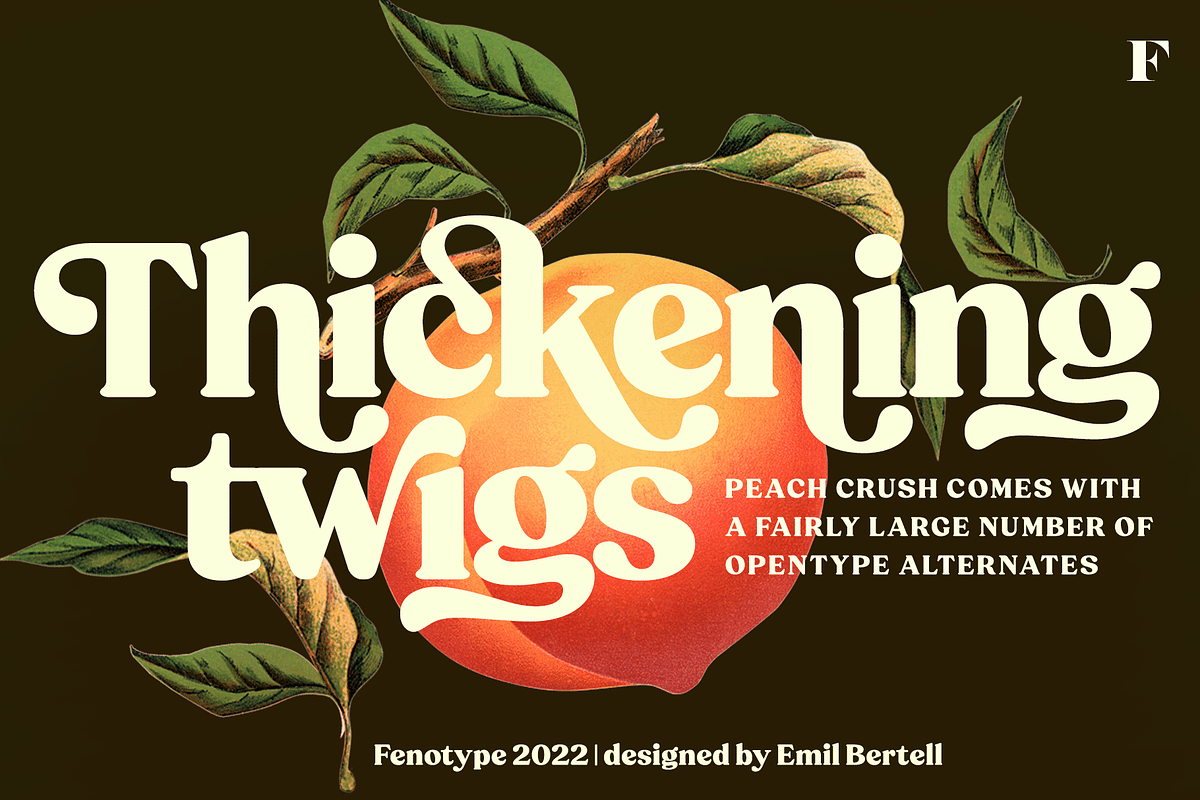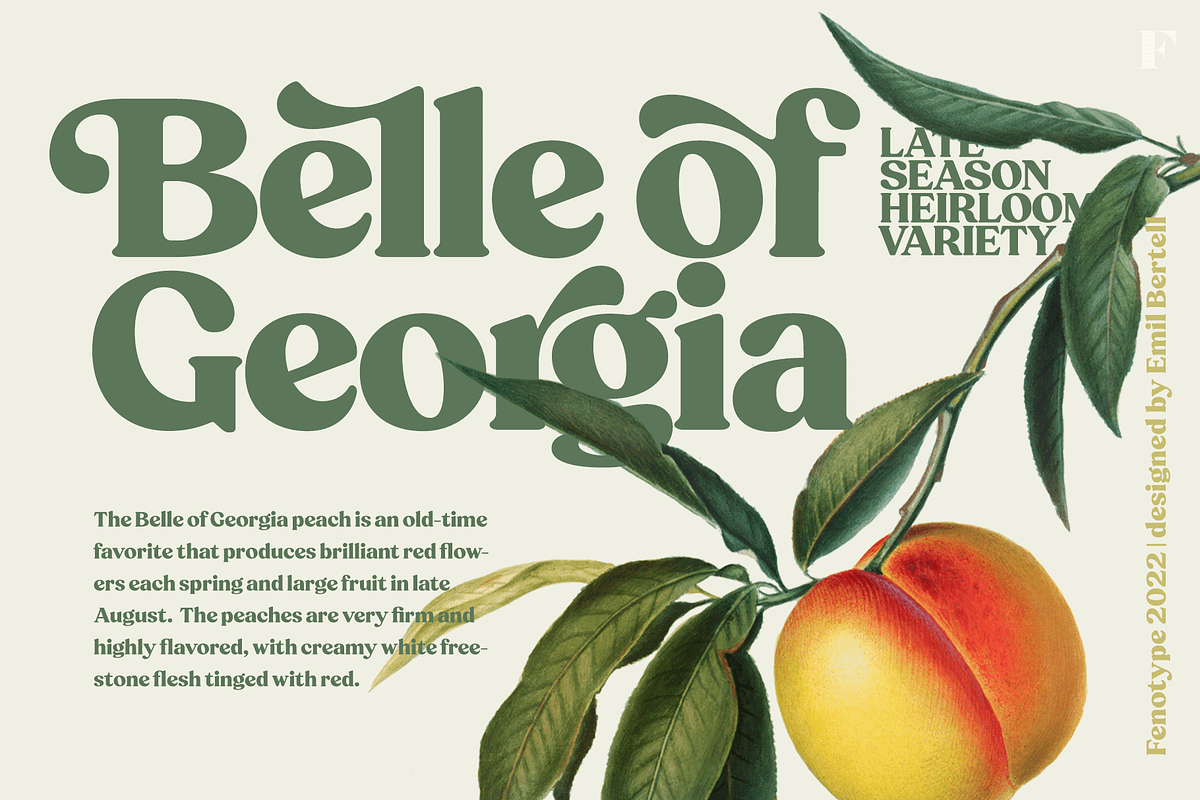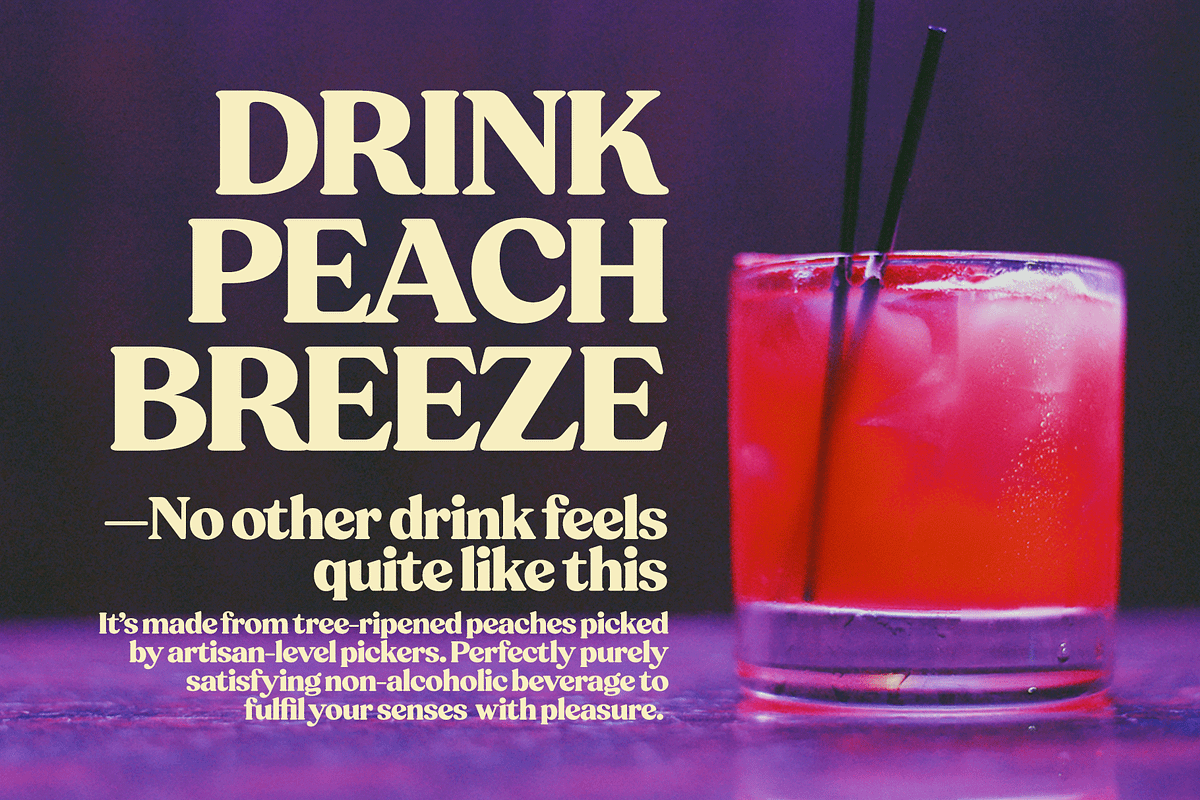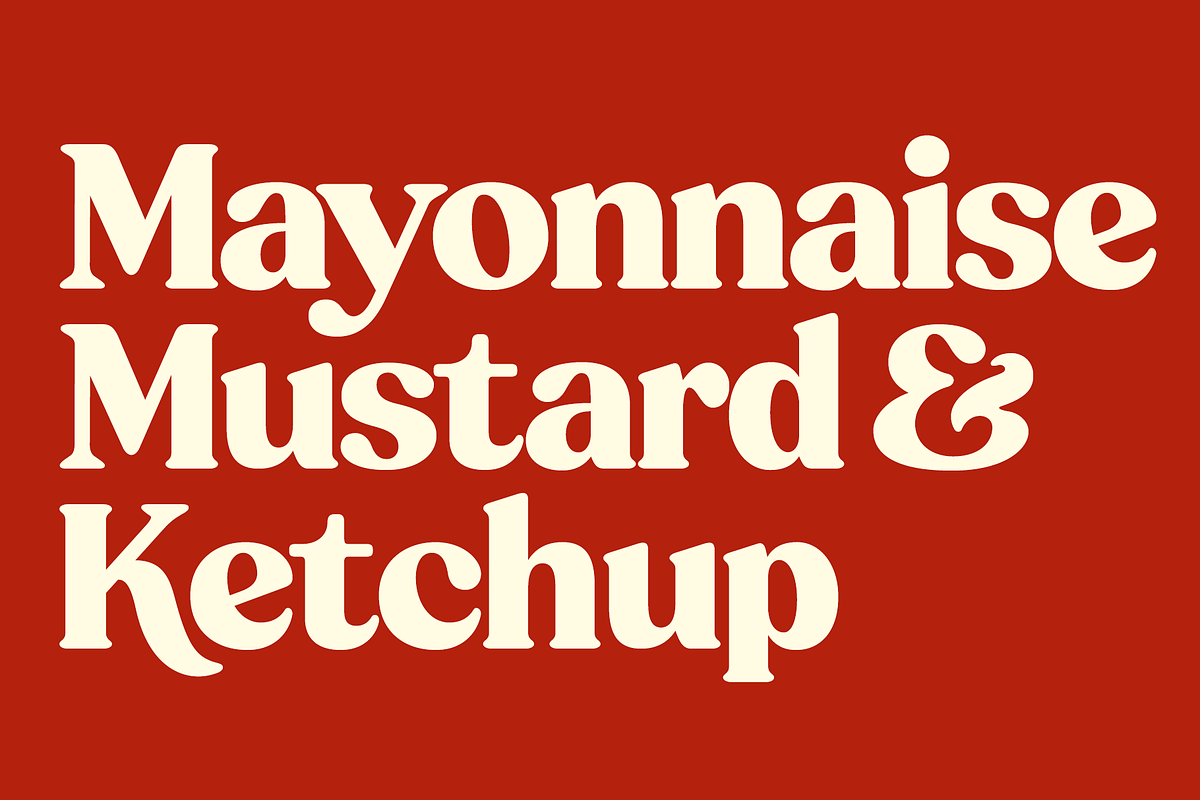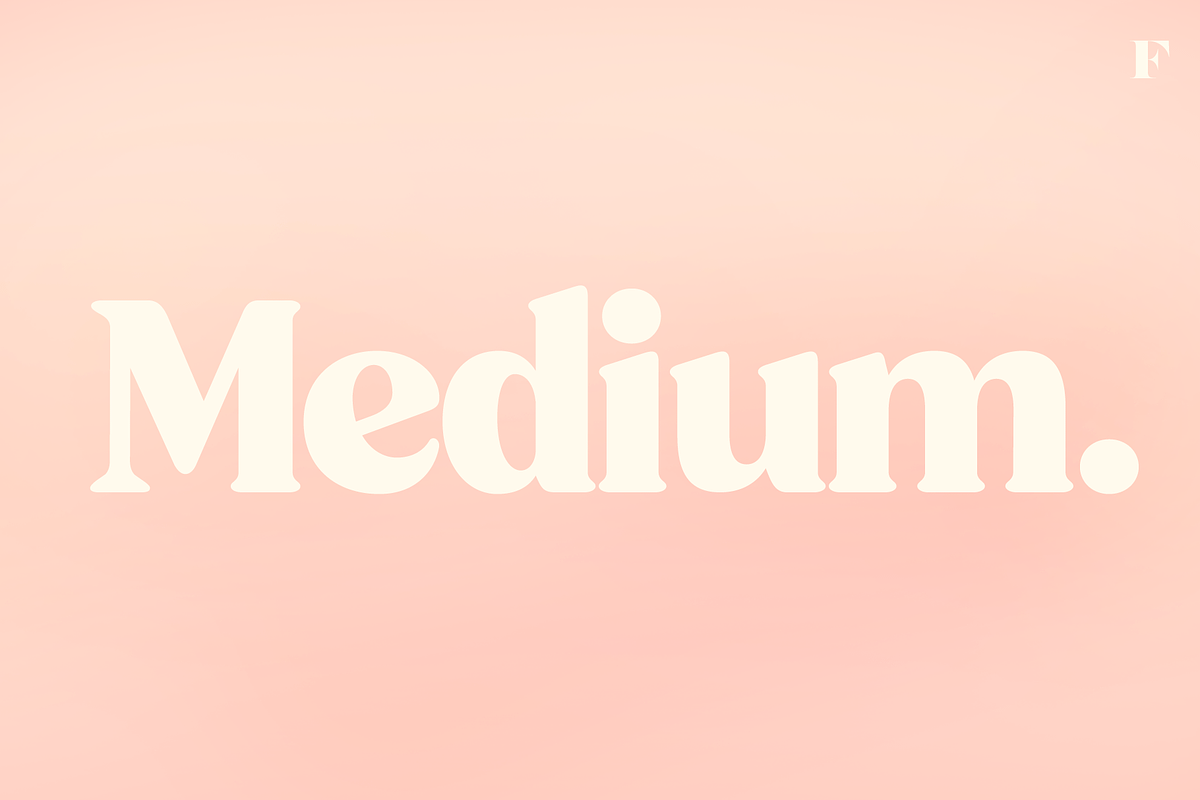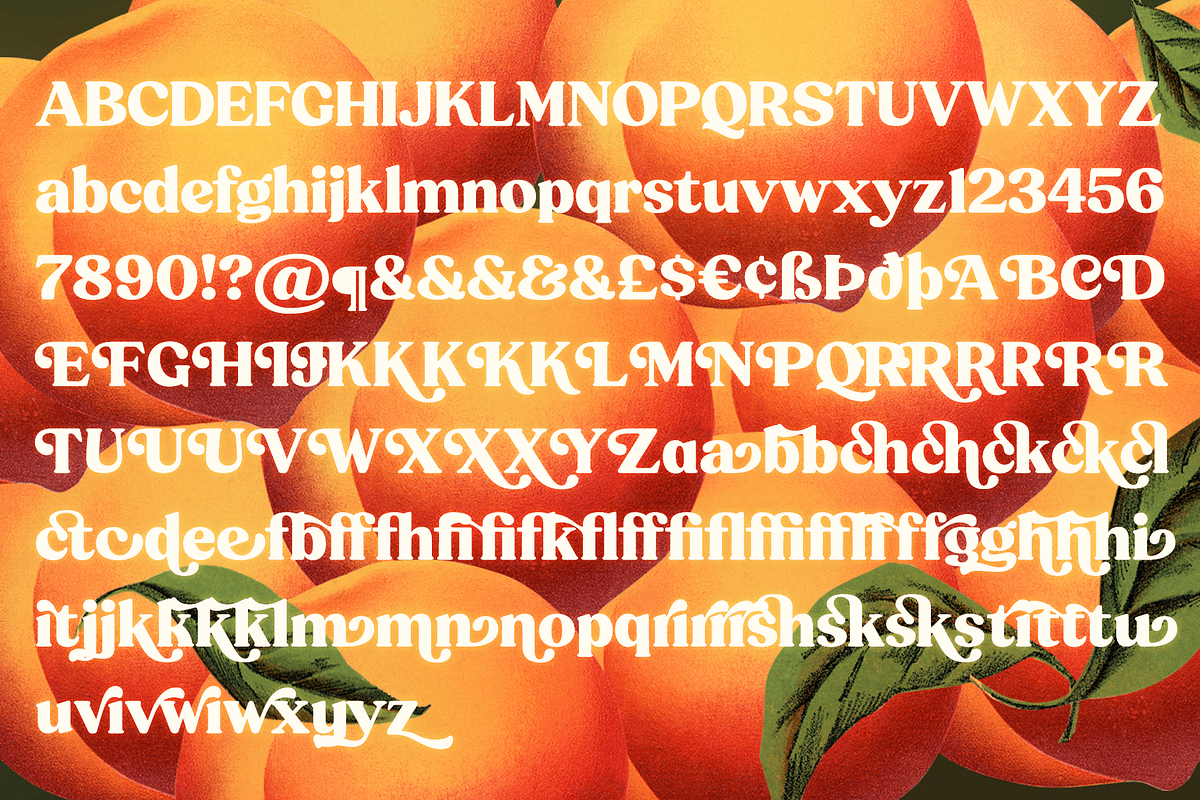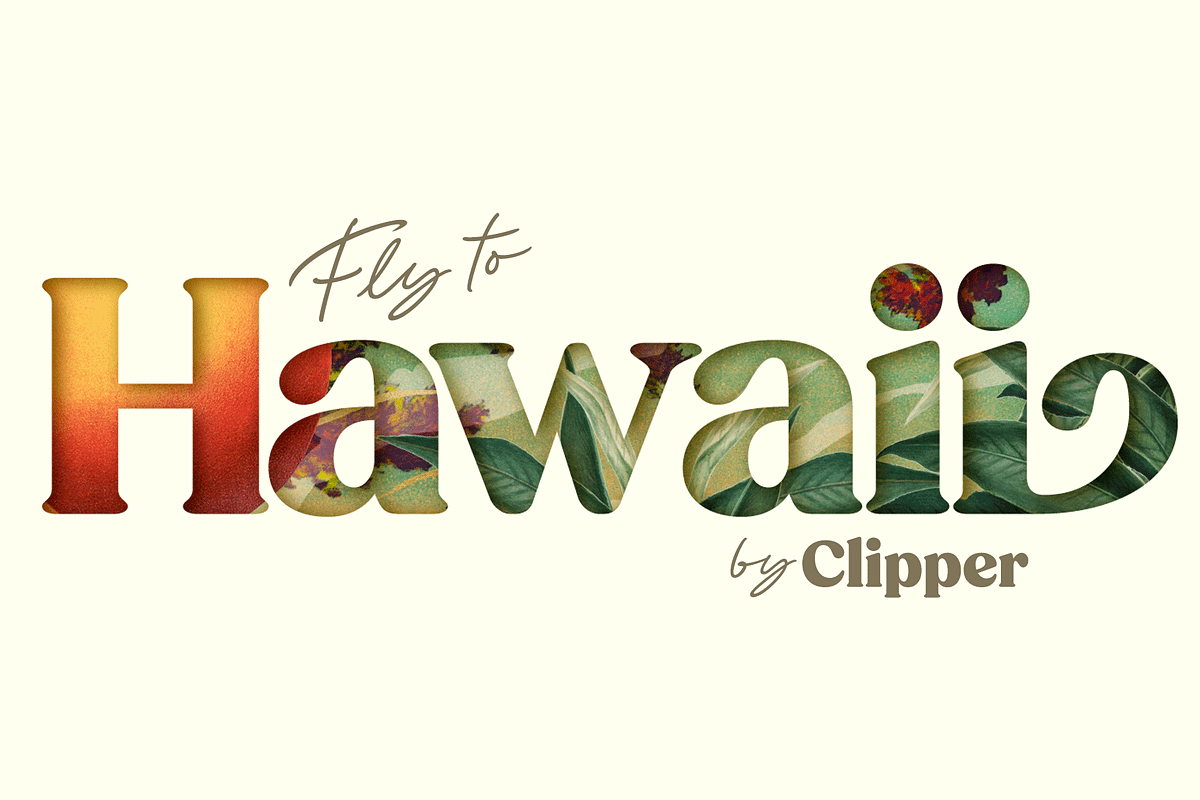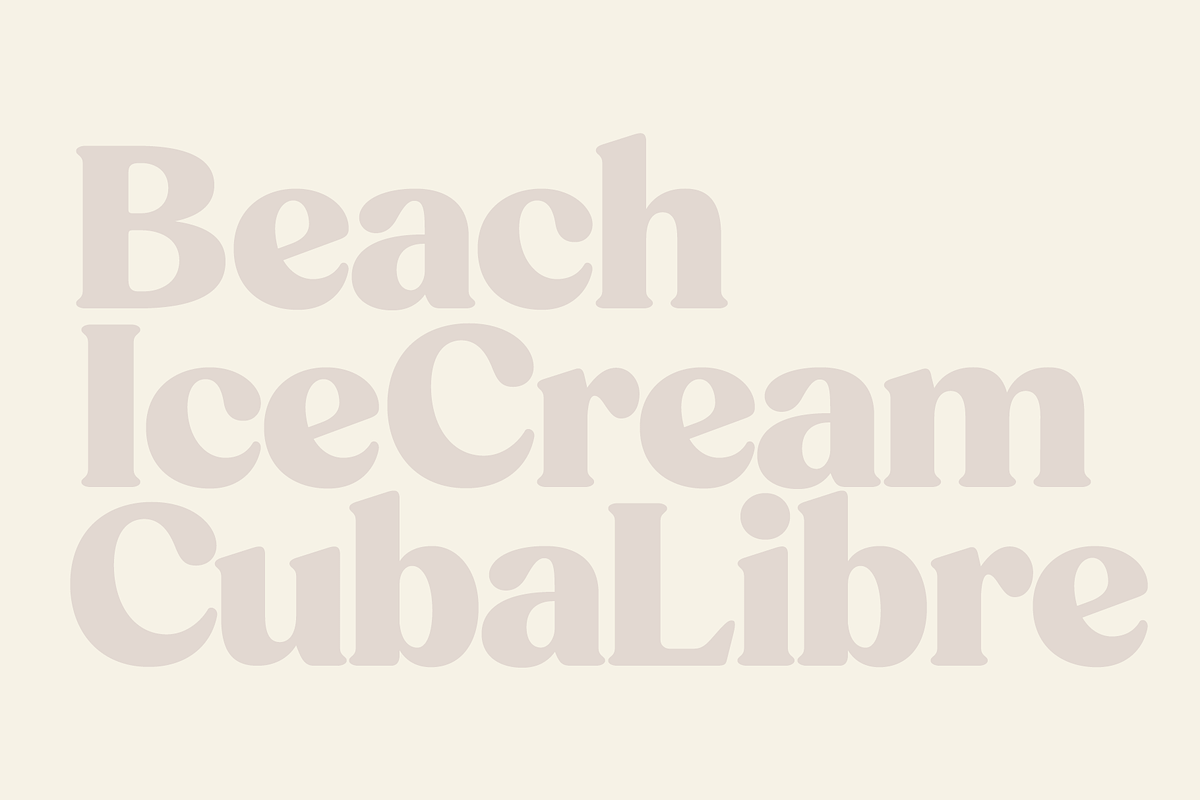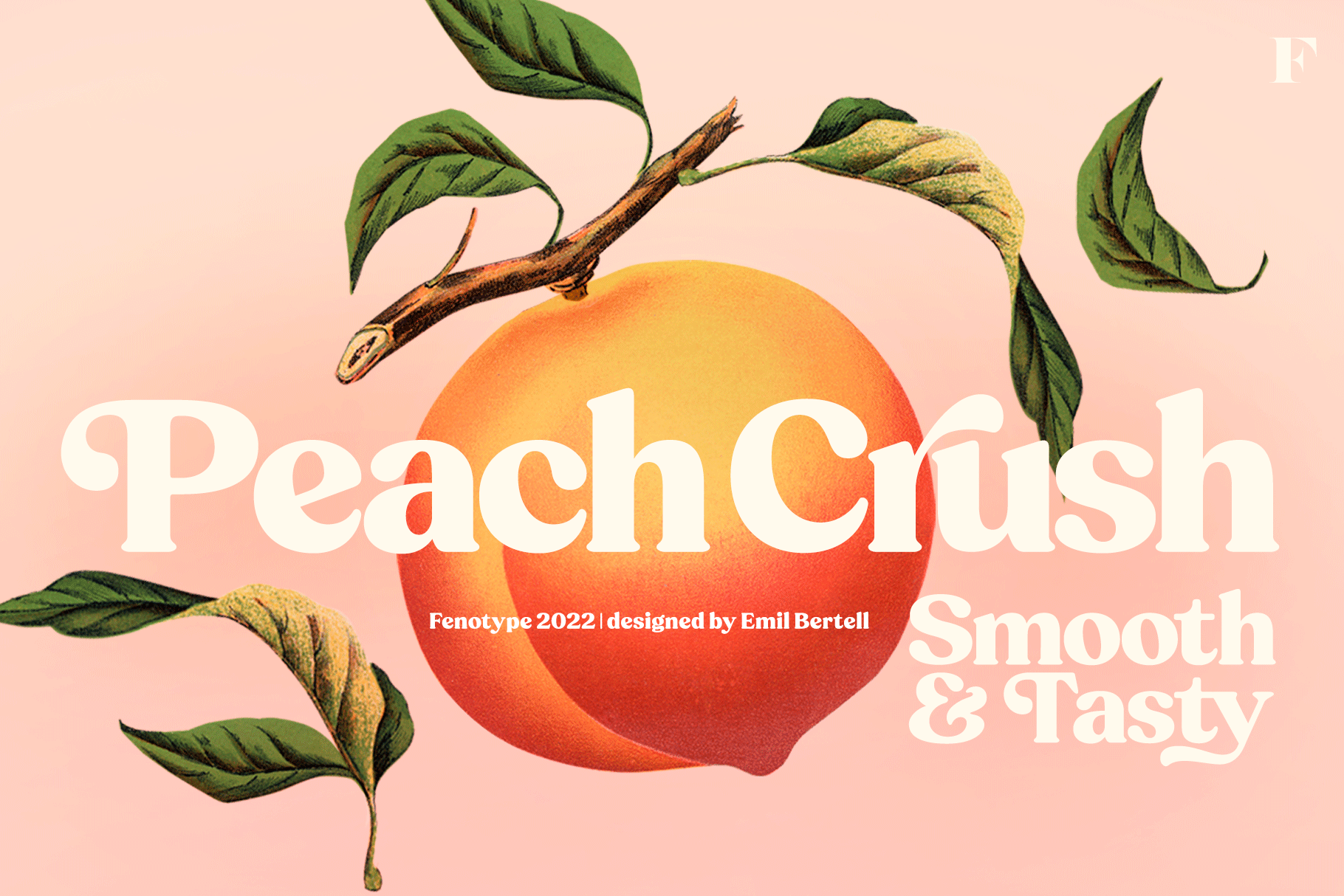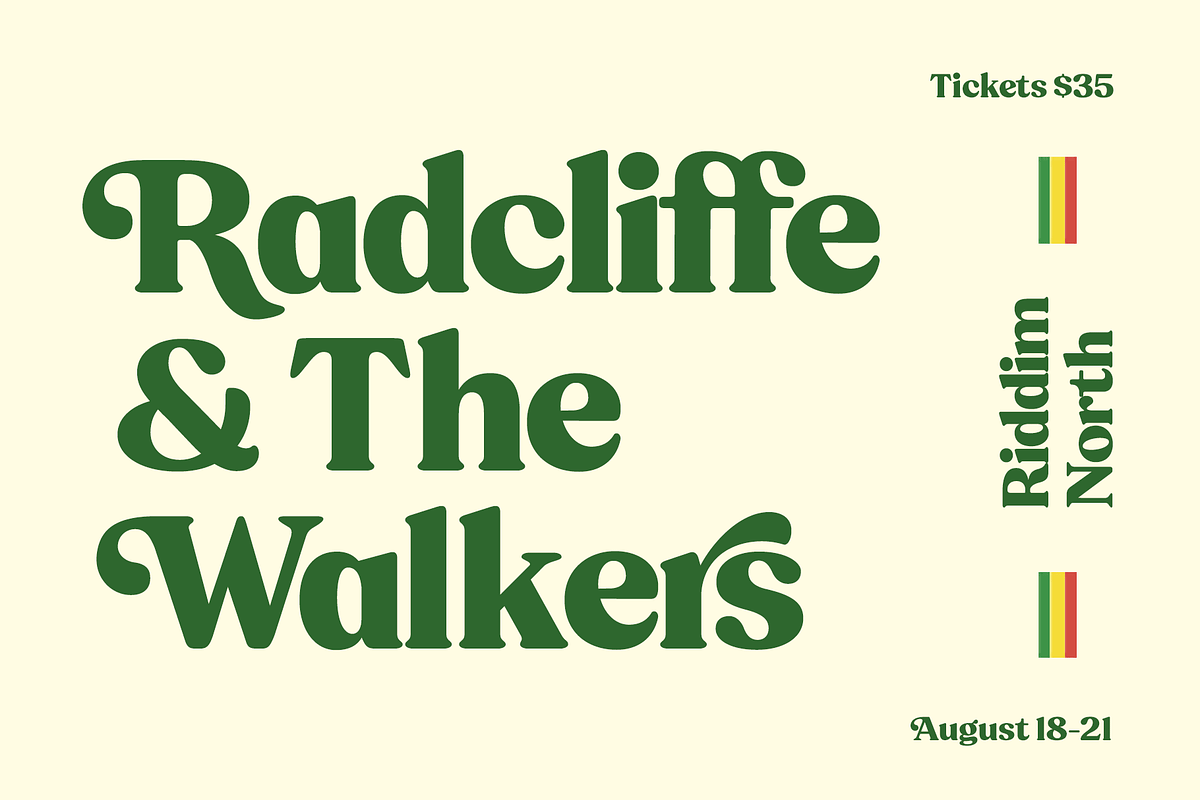
Peach Crush Serif Typeface
Peach Crush is a bold vintage style serif font with a soft charm and smooth features. Peach Crush delivers a reminiscence of a familiar and warm nostalgic feeling.
Peach Crush is equipped with Contextual, Swash, Stylistic and Titling alternates as well as Discretionary Ligatures and even more extra alternates. All these features can be accessed by OpenType controls or straight from Character or Glyphs window. Contextual Alternates and Standard Ligatures are automatically on and they simply do small changes to prevent certain character collisions. Other features are optional and can be used for bolder design solutions. Peach Crush has a total number of 115 alternate characters, even Swash Alternates for certain Standard and Discretionary Ligatures such as ch, ck, sh, sk, ff, fl and fi.
Peach Crush is a great typeface for contemporary graphic design with that certain feeling of familiarity. It works well on logos, packaging, restaurant graphics, or any display use, as well as in headlines or shorter texts. Try Peach Crush with reduced tracking for tighter word images, or if you want to use it in really small sizes add some tracking. Peach Crush is based on another Fenotype font, Tomato Ketchup ( https://creativemarket.com/Fenotype/6880498-Tomato-Ketchup-Retro-Serif-Font ) but has more contrast and sharper serifs.